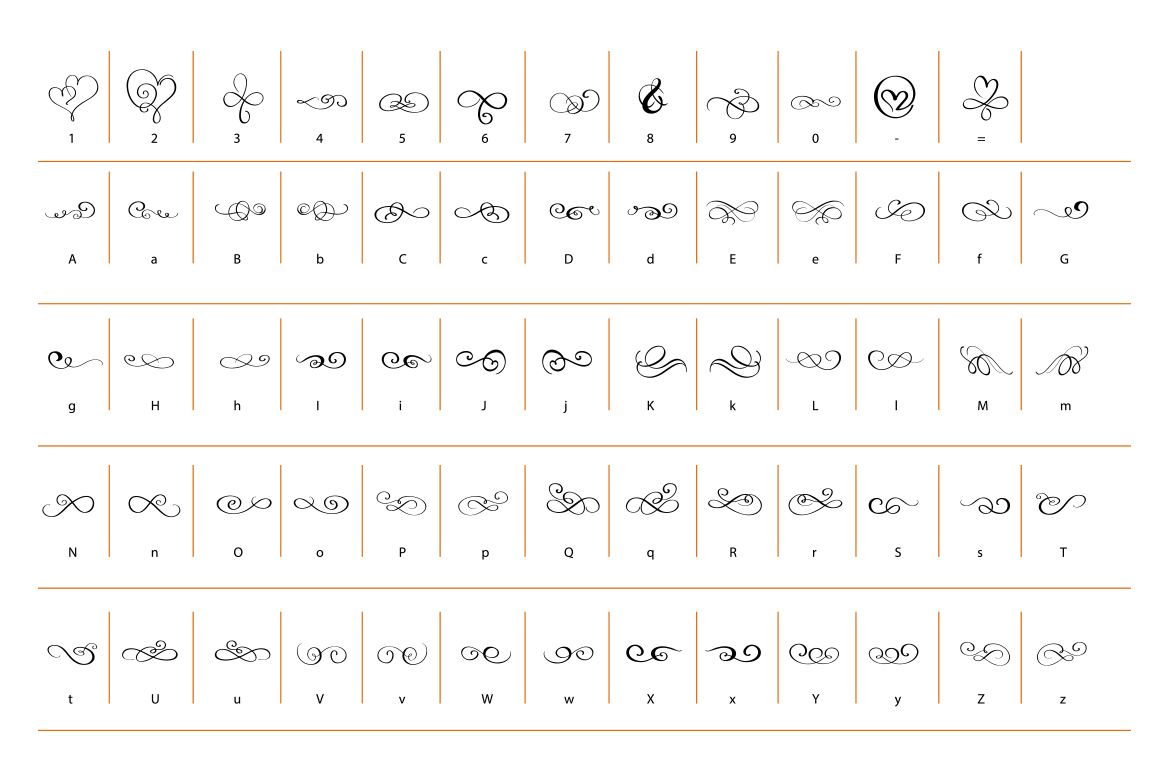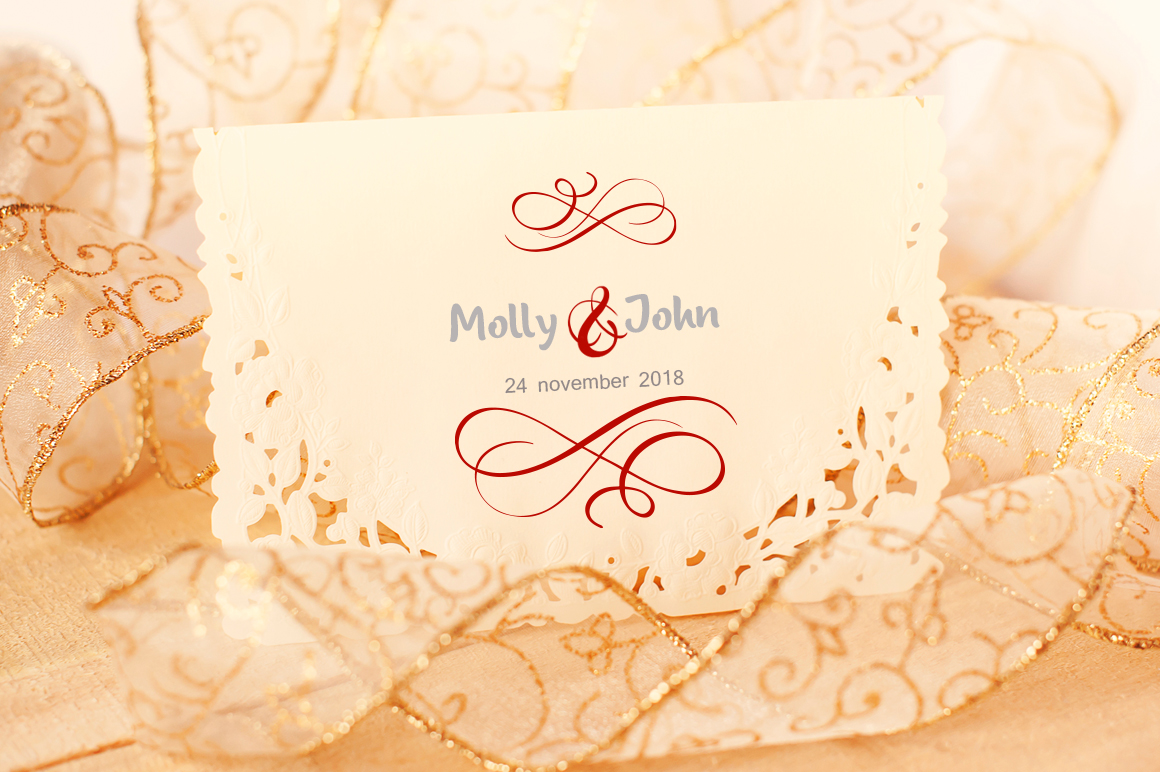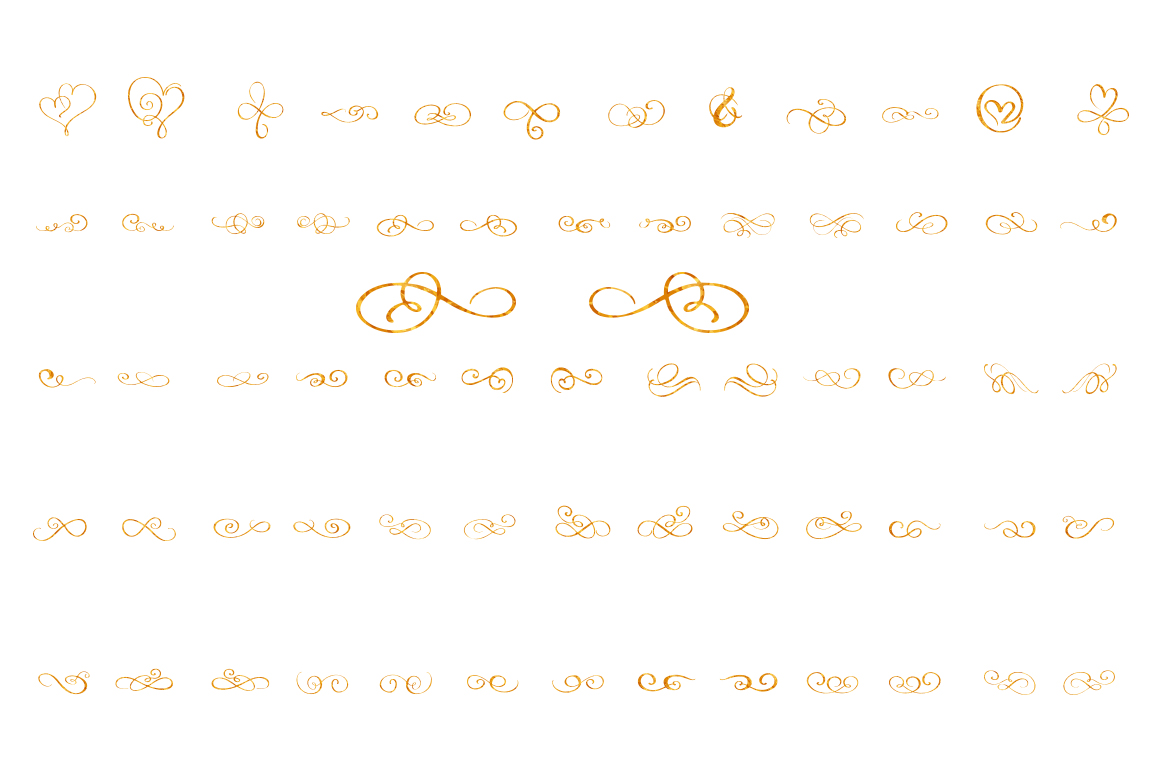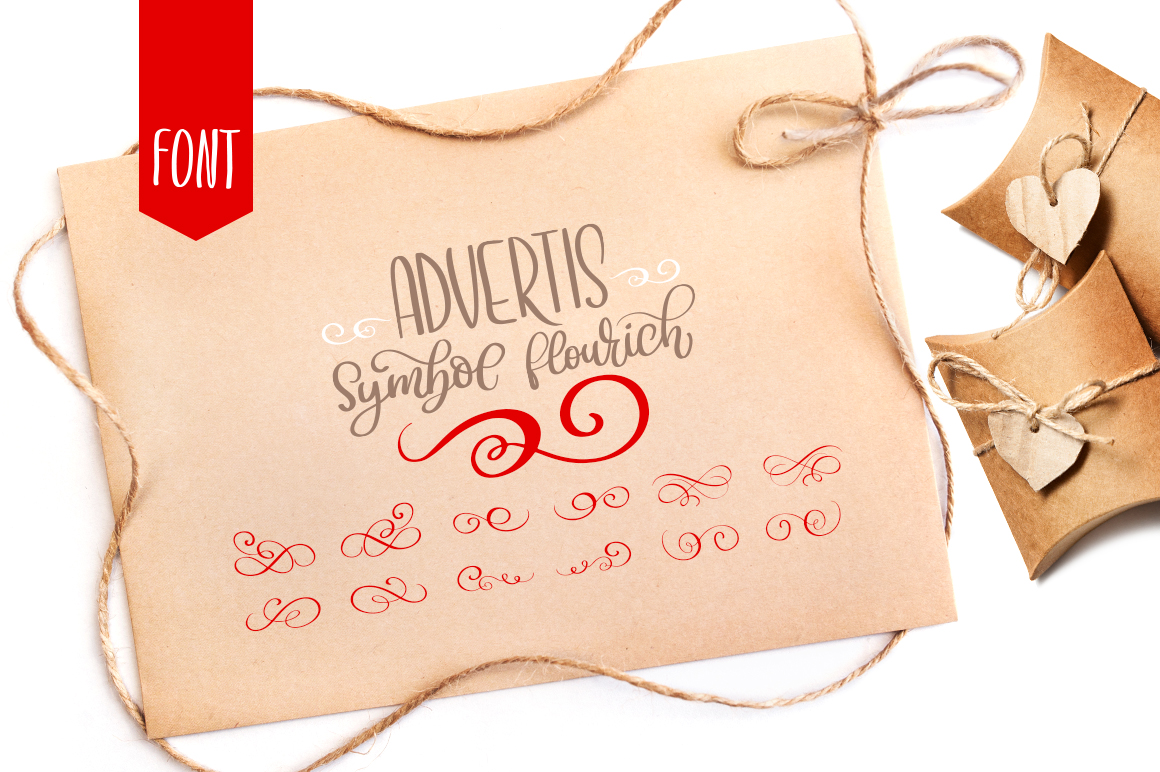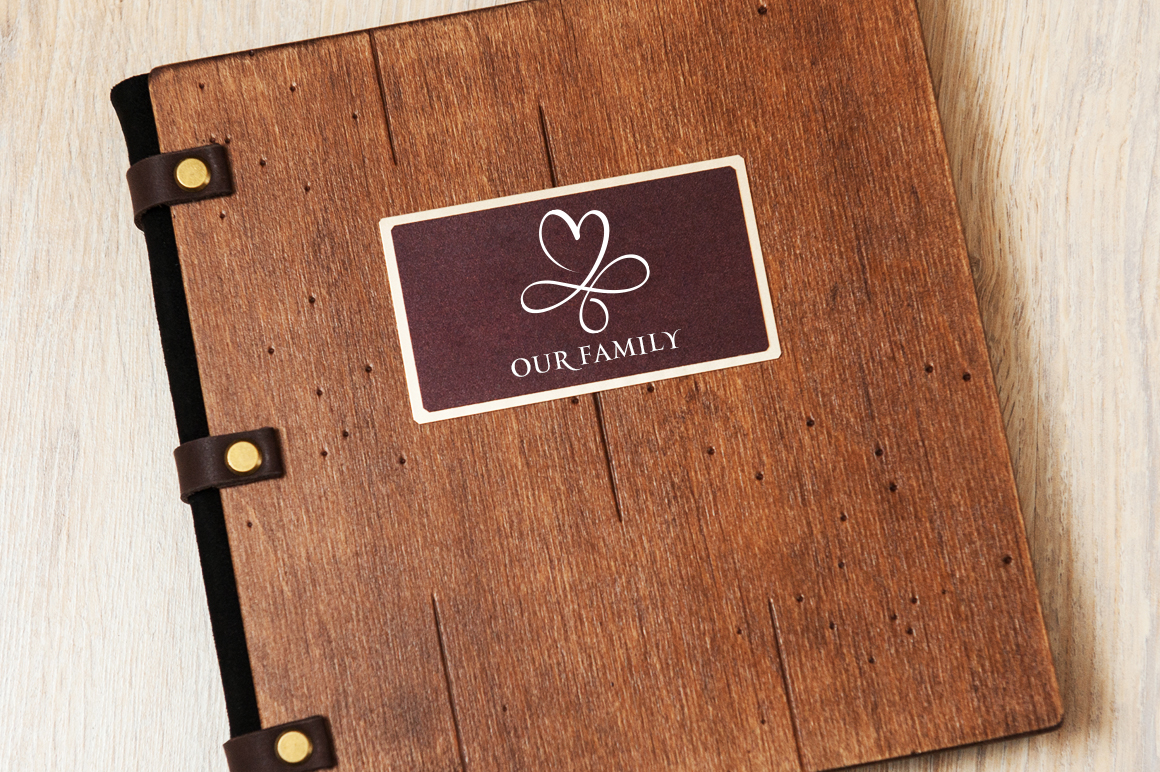
Advertis Font
About Advertis Font
Introducing Advertis: The Perfect Typeface for Adding Charm and Romantic Holiday Ornaments to Your Designs!
Advertis is a unique and enchanting typeface that will infuse your designs with a sense of charm and a romantic holiday mood. With its delicate and elegant calligraphic lines, this typeface captures the essence of a light breeze, bringing freshness and dreaminess to your handmade creations.
The flourishes in Advertis are thoughtfully designed to add a touch of elegance and whimsy to your typographic compositions. Each ornament is meticulously crafted, giving your designs a distinctive and romantic appeal. Whether you’re creating holiday cards, wedding invitations, or any other project that calls for a touch of charm, Advertis is the perfect choice.
The thin and delicate lines of Advertis emulate the graceful movements of calligraphy. They effortlessly flow across the page, creating a sense of lightness and airiness. This gives your designs a refreshing quality, evoking the feeling of a gentle breeze on a sunny day. With Advertis, you can bring that same light and airy atmosphere to your handmade creations.
The versatility of Advertis allows you to use it in various ways to enhance your designs. The unique flourishes can be used to embellish typography, frame important messages, or create decorative elements that add an extra layer of visual interest. The possibilities are endless, and Advertis ensures that your designs will stand out with its distinctive charm.
One of the advantages of using Advertis is its ability to evoke a romantic holiday mood. The elegant calligraphic lines and intricate flourishes create a sense of romance and whimsy that is perfect for capturing the spirit of special occasions. Whether you’re designing holiday-themed projects or adding a touch of romance to everyday designs, Advertis sets the right tone.
Handmade creations hold a special place in our hearts, and Advertis understands the importance of capturing that personal touch. With its delicate and charming design, this typeface adds a sense of craftsmanship and individuality to your work. Each letter and ornament feels like a labor of love, contributing to the overall beauty and appeal of your creations.
Incorporating Advertis into your designs is a simple yet impactful way to elevate your handmade projects. Whether you’re creating greeting cards, gift tags, or any other handmade items, this typeface will transform them into unique and memorable pieces. It brings a sense of magic and enchantment, creating a delightful experience for both the creator and the recipient.
So, if you’re looking to add charm and romantic holiday ornaments to your designs, look no further than Advertis. Let its thin, elegant calligraphic lines and unique flourishes breathe life into your handmade creations. With its fresh and dreamy appeal, this typeface will transport your audience to a world of romance and whimsy.
Embrace the beauty of Advertis and let its charm and romantic holiday mood ornaments take your designs to new heights. Whether you’re a professional designer or a creative enthusiast, this typeface will inspire your creativity and help you craft captivating and memorable designs. Let Advertis be the breeze that brings a touch of magic to your handmade creations.
Don’t miss out on the opportunity to infuse your designs with the freshness and dreaminess of Advertis. Explore its unique flourishes, embrace its delicate lines, and let it add a romantic and charming touch to your typographic compositions. Elevate your handmade creations and create a lasting impression with Advertis.